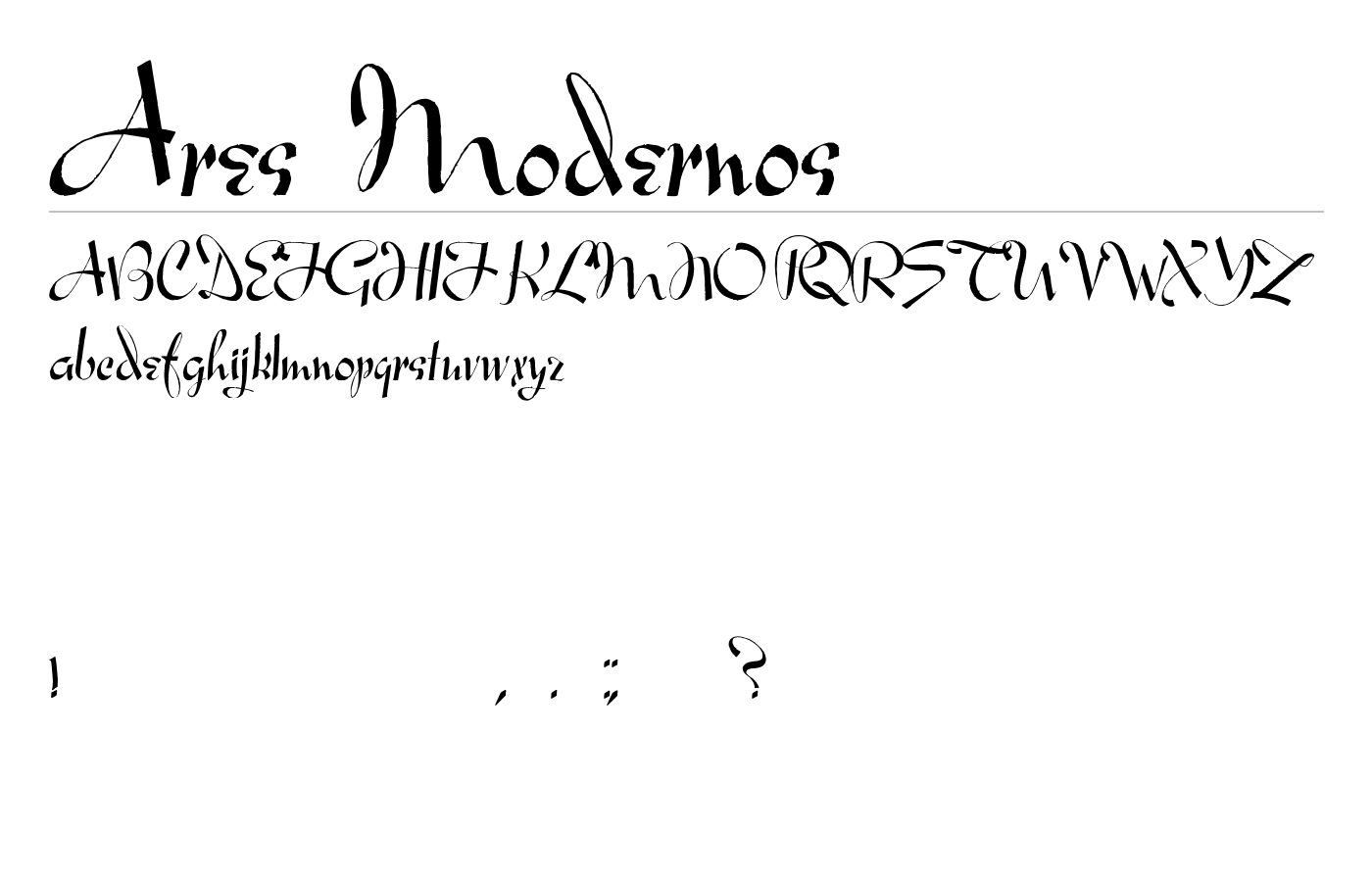
Ares Modernos is an artistic, handwritten script font with fluid, expressive strokes that give it a unique and elegant personality. Its high contrast and intricate letterforms with sweeping curves make it ideal for creative projects, logos, and invitations where a distinctive, sophisticated touch is desired. This font works best in display settings, adding flair and a handcrafted feel to branding and editorial designs.
Ares Modernos Font